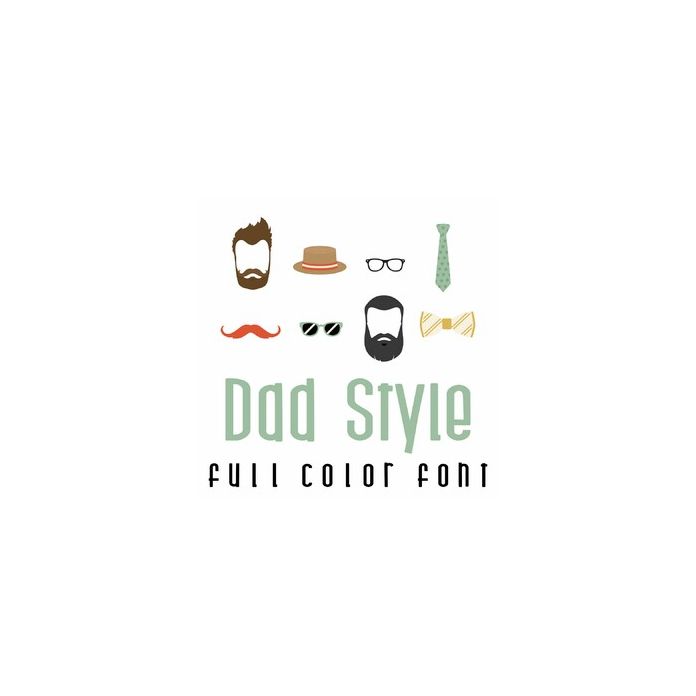
This fun full color doodlebat font is perfect for your Hipster Dad on Father's Day. Use this graphic to create fun gifts, cards, crafts, decor, planner stickers, scrap book pages and more!